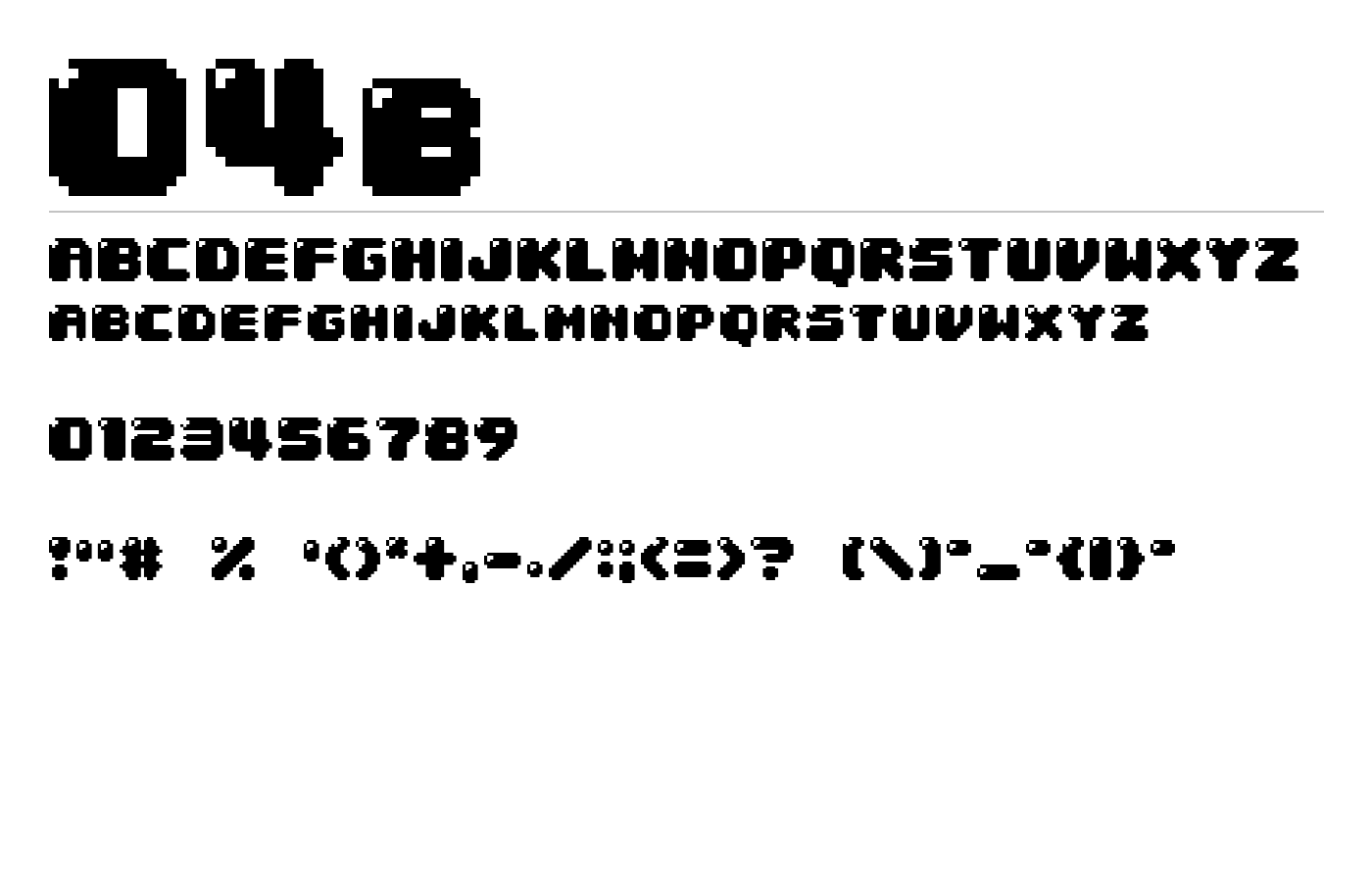
04b is a chunky, pixel-inspired sans serif font with a bold weight and a blocky, geometric style that evokes retro video games and digital displays. Its high contrast and pixelated edges give it a playful yet tech-savvy feel, making it ideal for use in digital art, gaming logos, or any design seeking a nostalgic, pixel-art aesthetic. This font works best in headlines or display text where its distinctive, eye-catching style can shine.